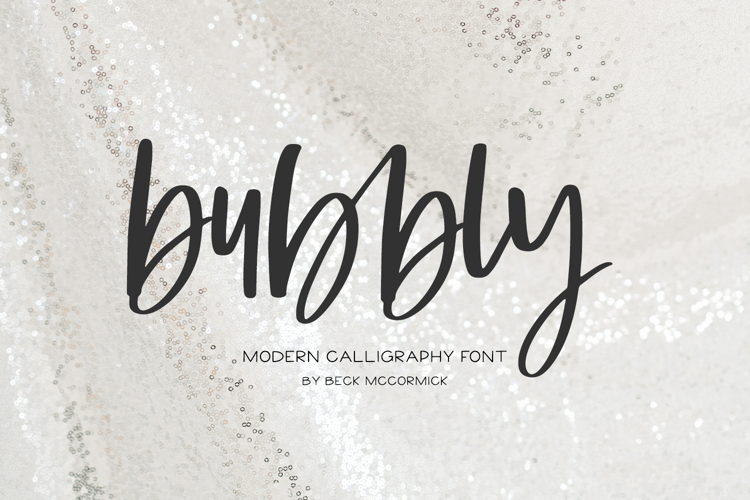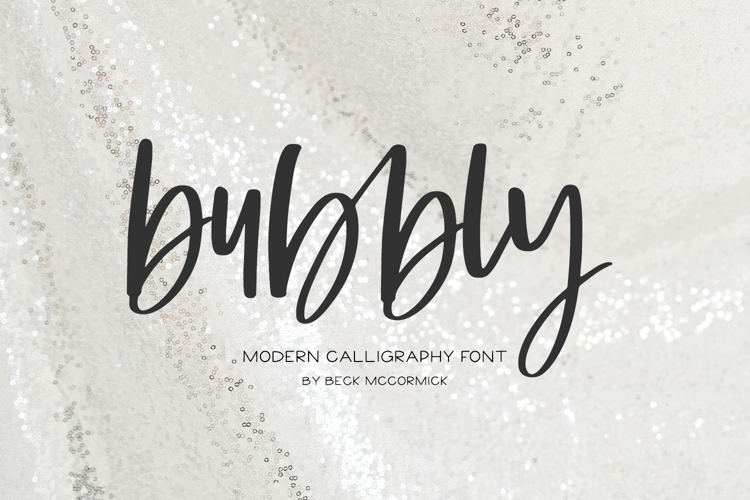
Introducing Bubbly, a modern handwritten script. Bubbly has an organic, signature-style aesthetic making it perfect for projects requiring a handwritten touch.
Bubbly is best for:
- modern farmhouse decor and crafts
- website design + website accents, blog design
- feminine graphic tee shirt design & other apparel
- Christmas projects like cards & gift tags
Bubbly includes:
- 16 ligatures - bb, cc, dd, ee, ff, gg, kk, ll, mm, nn, oo, pp, rr, ss, tt, zz